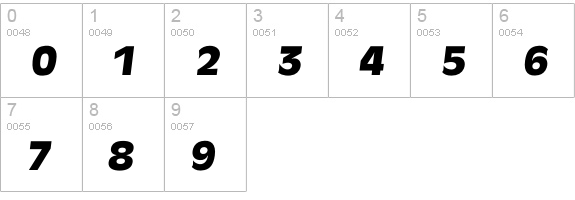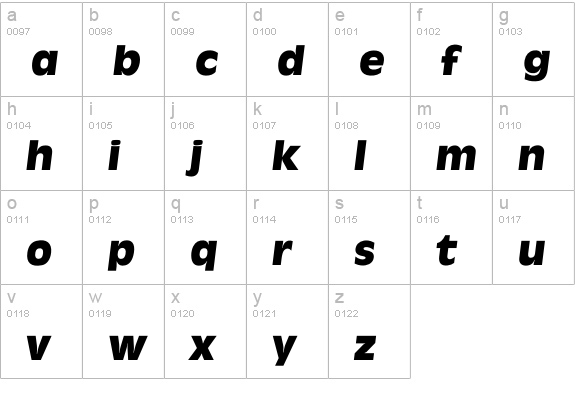
Iravenna ExtraBold is an extra-heavy, attention-grabbing variant in the Iravenna typeface family \xE2\x80\x94 well suited to high-impact headlines, posters, and bold branding.
Introducing Iravenna ExtraBold, a font that exudes power, confidence, and boldness in every stroke. This captivating typeface is designed to make a statement and leave a lasting impression in any design project. With its thick and striking letterforms, Iravenna ExtraBold demands attention and commands authority. Iravenna ExtraBold is perfect for headlines, titles, logos, and any other design element that requires a strong visual impact. Its robust and solid appearance adds a touch of sophistication to any design, making it ideal for branding, advertising, packaging, and more. But what sets Iravenna ExtraBold apart is not just its remarkable aesthetics; it is also the fact that it is freely available to download at FontsMarket.com. Yes, you read that right! Iravenna ExtraBold can be yours without any cost, allowing you to enhance your designs without breaking the bank. Whether you're a professional designer, a student, or simply someone who appreciates the value of high-quality fonts, Iravenna ExtraBold is a must-have addition to your font library. Its versatility and elegance make it suitable for a wide range of design projects, from print to digital. So, why wait? Experience the power and elegance of Iravenna ExtraBold by downloading it for free at FontsMarket.com. Take your designs to new heights with this exceptional font, and captivate your audience with its commanding presence. Embrace the freedom to create stunning designs without any limitations, thanks to Iravenna ExtraBold.